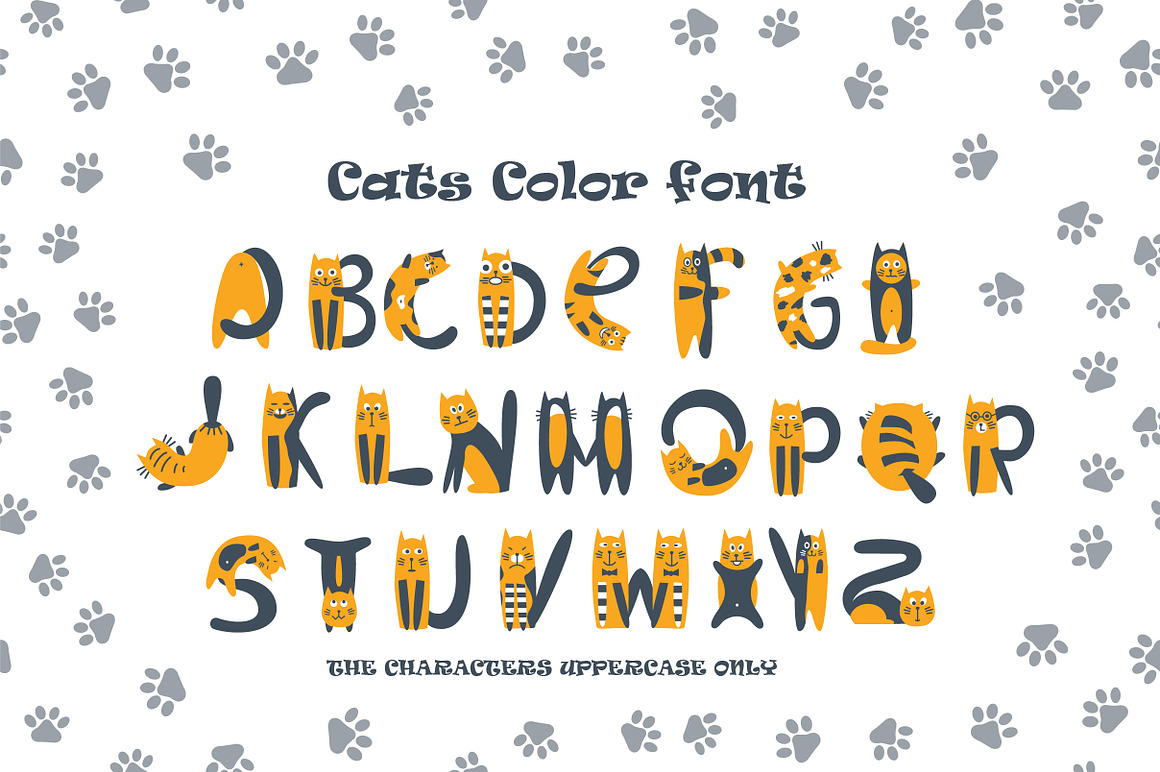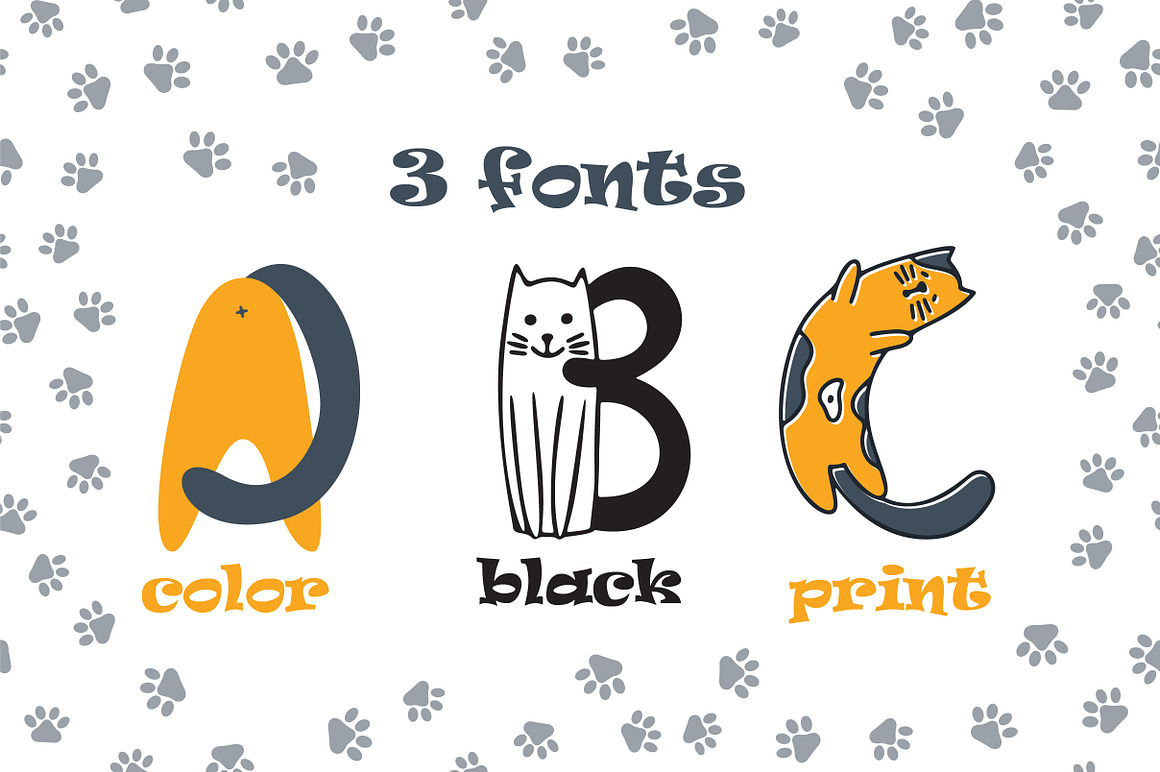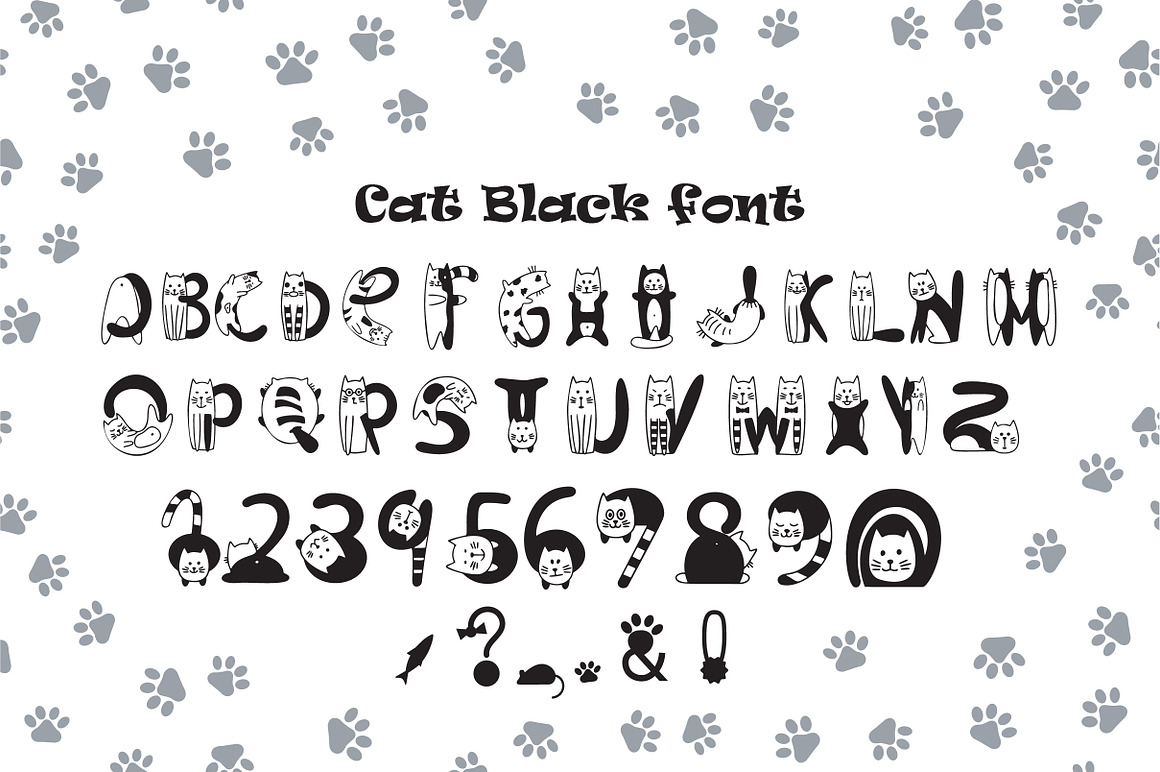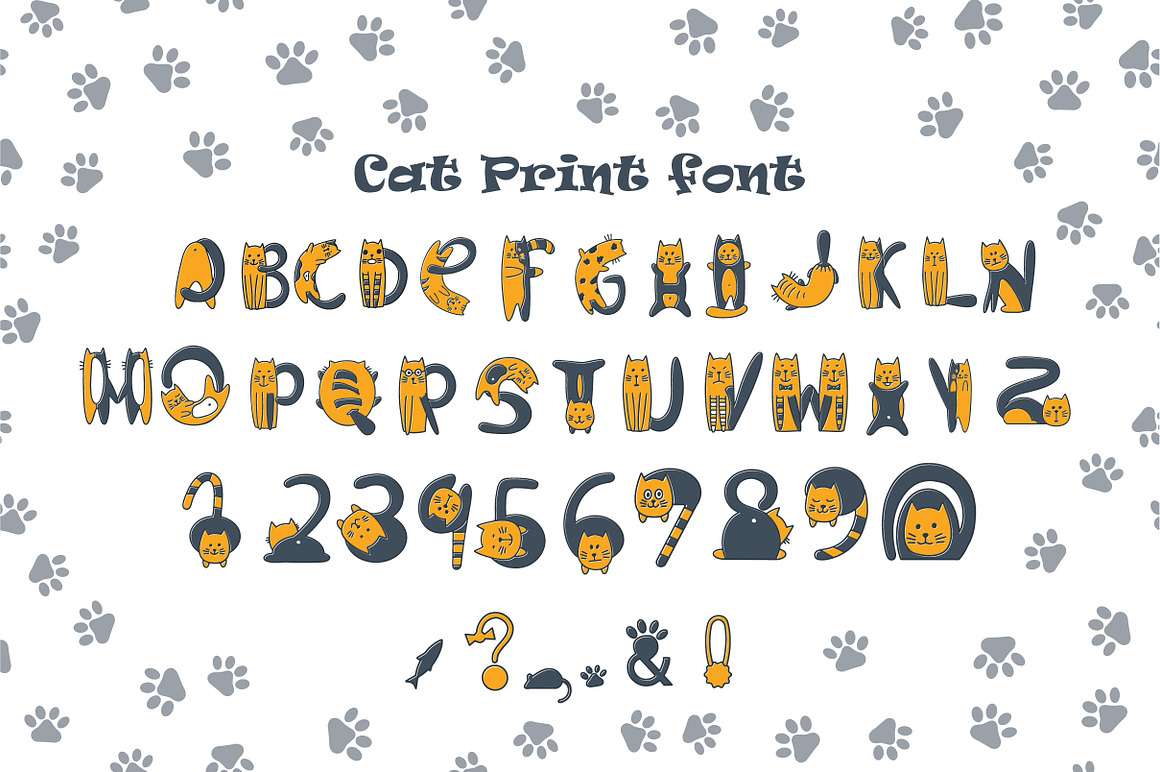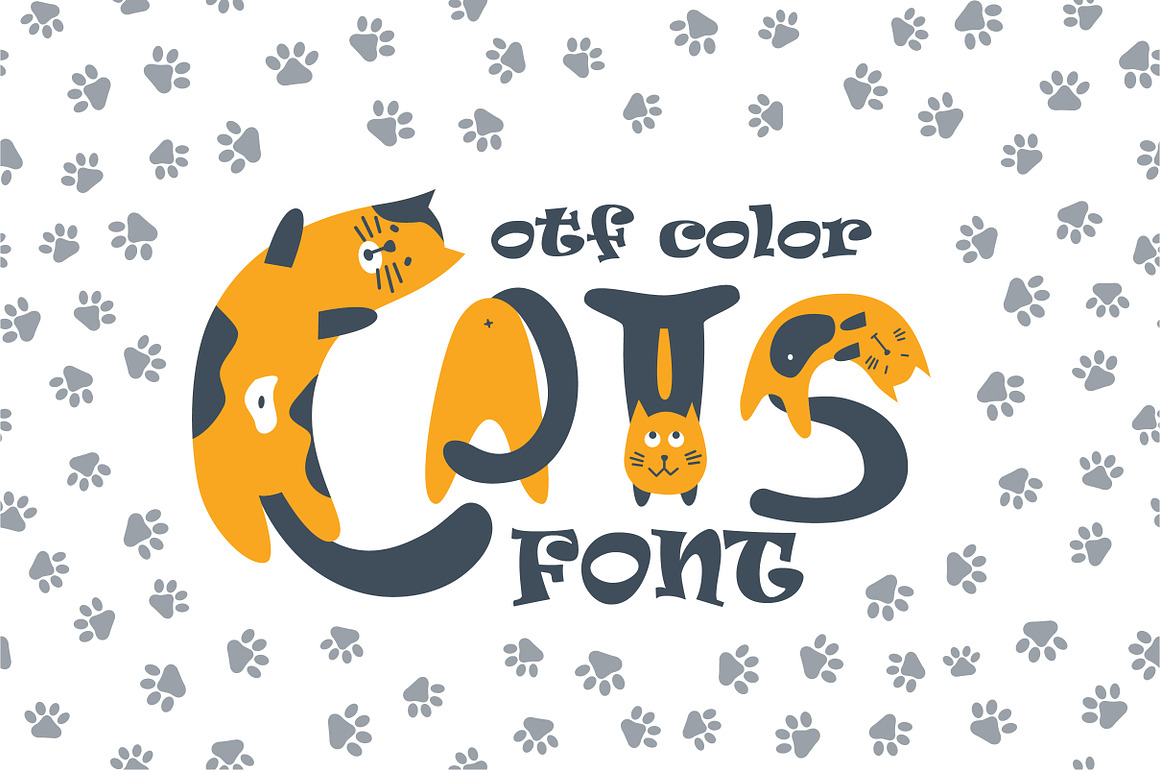
Cats Cute OTF Color Font
This Cats Cute OTF Color Font is perfect for adorable pet store branding, veterinary clinic materials, cat café signage, children's book illustrations, pet adoption campaigns, cute kitten product packaging, playful animal shelter communications, feline-themed party invitations, pet grooming salon graphics, and charming cat lover merchandise designs.
What makes this Cats Cute OTF Color Font exciting is its adorable feline charm that captures the playful sweetness and endearing personality of beloved cats through innovative color technology. The font features cute letterforms with colorful cat-inspired elements that convey feline cuteness, playful affection, and heartwarming pet love. Its adorable character and advanced OTF color capabilities make it ideal for brands seeking to communicate pet love, feline charm, and adorable cuteness in pet care and children's markets.
The Cats Cute OTF Color Font family includes regular and bold weights with colorful cat alternates, adorable variants, and playful feline flourishes. This comprehensive cute font family provides designers with charming typographic tools to create adorable compositions while maintaining the feline character essential for pet industry and children's brand communications.
The adorable construction of Cats Cute OTF Color Font showcases lovingly designed letterforms with cute proportions that ensure exceptional charm across all pet applications. Its colorful appearance and feline character create memorable impressions while maintaining the readability necessary for effective pet communication and children's materials.
Professional designers appreciate how Cats Cute OTF Color Font brings immediate feline authenticity and adorable appeal to brand communications. The font's cute nature allows organizations to communicate pet love and feline charm while maintaining the professional quality necessary for effective positioning in pet care and children's entertainment markets.
The heartwarming appeal of Cats Cute OTF Color Font makes it particularly effective for brands emphasizing pet love, feline companionship, and adorable cuteness. Its charming character resonates strongly with audiences who appreciate cat love, pet care, and brands that represent the endearing bond between humans and their beloved feline companions.